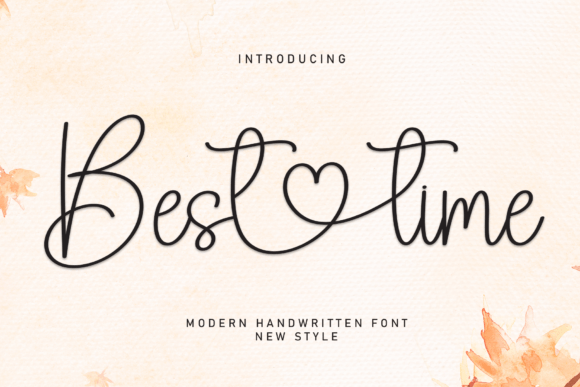
The Ultimate Guide to Best Time Font: Elevate Your Designs with a Sweet and Friendly Handwritten Font
I’ll never forget the time I was working on a project for a client who wanted a font that was both playful and professional. I spent hours scouring the internet for the perfect font, but nothing seemed to fit the bill. That was until I stumbled upon Best Time, a sweet and friendly handwritten font that has since become a staple in my design toolkit. In this article, I’ll share with you why I love Best Time, its unique features, and how to make the most of it in your designs.
An Honest Review of Best Time Font
What I Love About Best Time Font ✨
- ✅ Natural and unique style: Best Time has a distinct handwritten feel that sets it apart from other fonts.
- ✅ Versatility: This font can be used in a wide range of designs, from invitations and greeting cards to branding and advertising.
- ✅ Ease of use: Best Time is easy to read and works well in both digital and print formats.
- ✅ OpenType features: This font comes with a range of OpenType features, including glyphs and stylistic alternates, that allow you to customize your text.
- ⚠️ Limited use in very formal designs: While Best Time is a professional font, it may not be suitable for very formal or corporate designs.
- ⚠️ Some letters may require manual kerning: As with any font, you may need to adjust the kerning of certain letters to get the best results.
How to Use Best Time Font in Your Designs
The Story Behind Best Time Font
Best Time font was designed by a team of typographers who wanted to create a font that was both playful and professional. The font was inspired by the idea of capturing the feeling of a handwritten note in a digital format. The designers spent countless hours perfecting the font, making sure that it was both easy to read and visually appealing.
| What is Best Time font? | Best Time font is a sweet and friendly handwritten font perfect for a wide range of designs. |